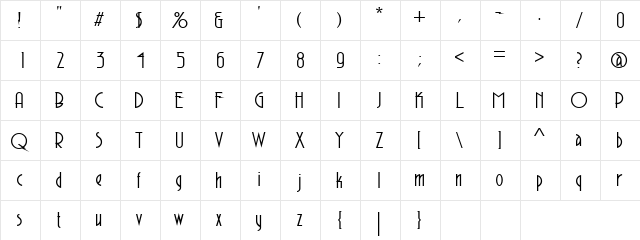
Aeronaut Regular Free Font
Aeronaut Regular
Complete Aeronaut Regular glyph index. Displaying only characters natively supported by Aeronaut Regular font.
Design Context for Aeronaut
Aeronaut is a composed and adaptable typeface that performs quietly and consistently across a wide range of design contexts.